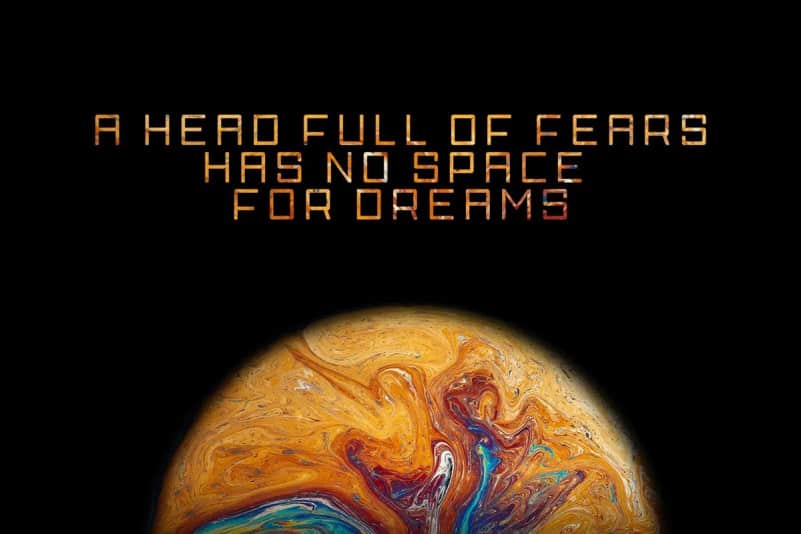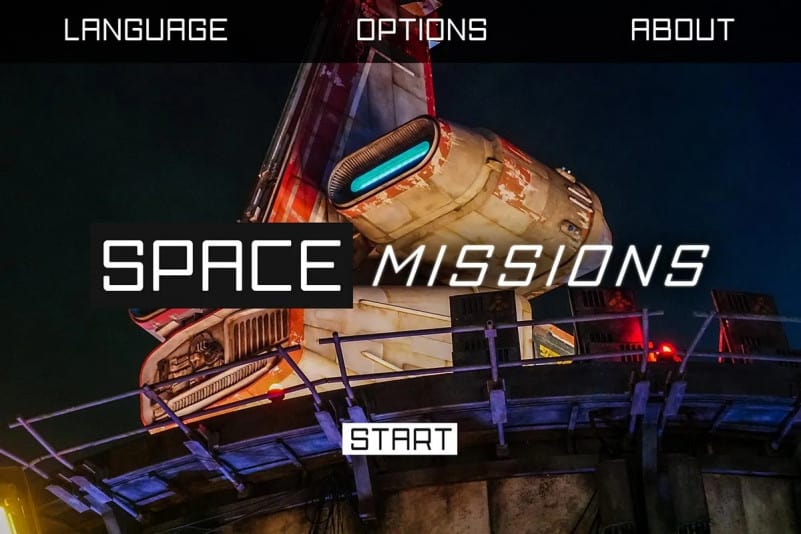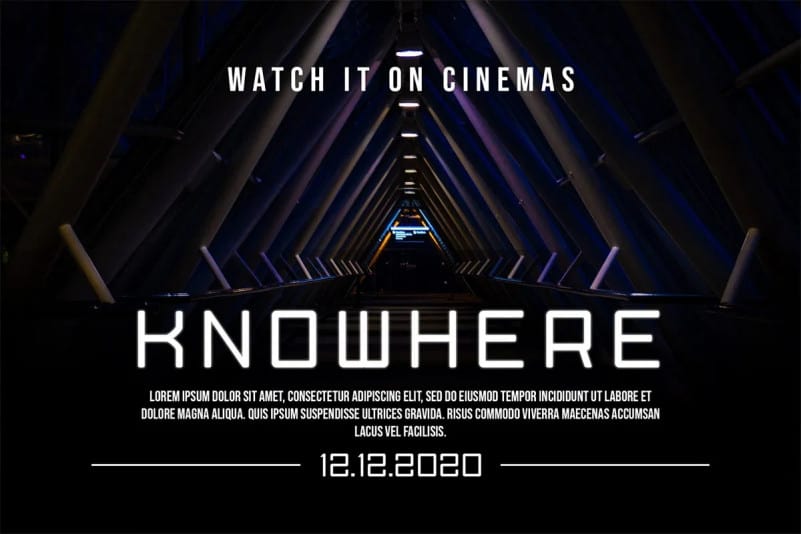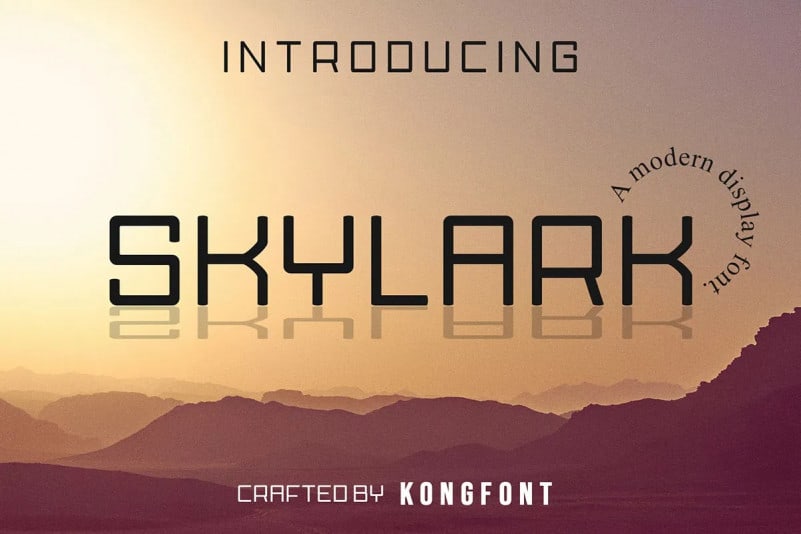
Skylark Display Font is a minimalistic, timeless, and stunning all caps display font. Skylark is a modern sans serif display typeface created by fontkong very much suitable for Film Posters, headlines, Block letters, Subheadings, Logo Designs, Big Banners. Classic & Decorative Typography Web Designs.